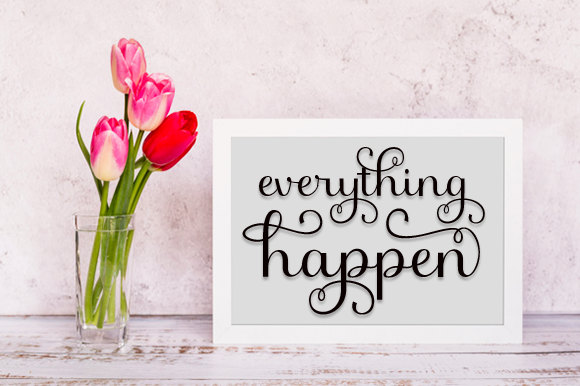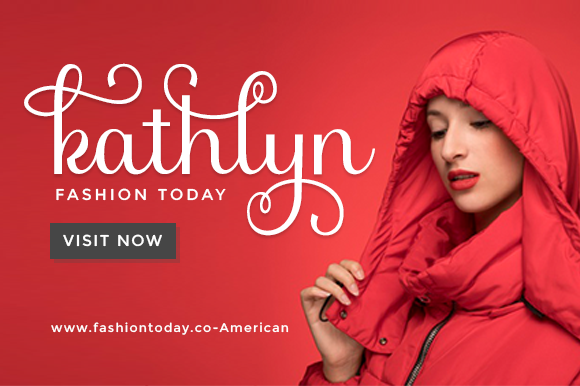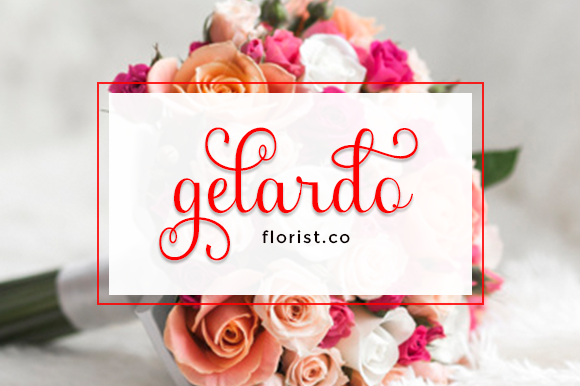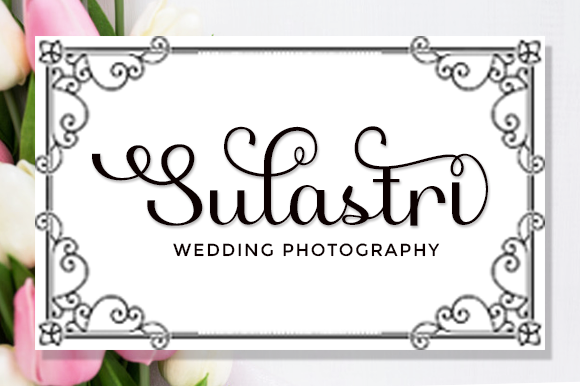
Discover the Elegance of Beligna Font: Elevate Your Design Projects
Are you on the hunt for a font that exudes charm and sophistication? Look no further than Beligna Font. This beautiful handwritten font is a masterful blend of classic calligraphy and modern style, making it the perfect addition to any design project. In this article, we’ll dive into the world of Beligna Font, exploring its unique features, and how it can elevate your designs to new heights.
The Charm of Beligna Font
Beligna Font feels equally charming and elegant, making it an excellent choice for designers and crafters looking to add a touch of sophistication to their work. This stunning handwritten font is a stylish homage to classic calligraphy, with flowing lines and delicate curves that evoke a sense of luxury and refinement.
What Makes Beligna Font Special?
So, what sets Beligna Font apart from other fonts? Here are a few key features that make it a standout:
- Handwritten with love: Beligna Font is a carefully crafted handwritten font, with each letter lovingly written to create a unique and personal feel.
- Classic calligraphy inspiration: Beligna Font draws inspiration from classic calligraphy, with elegant flourishes and delicate curves that add a touch of sophistication to any design.
- Versatile and adaptable: Whether you’re working on a branding project, a wedding invitation, or a digital design, Beligna Font is versatile enough to adapt to any style or theme.
- Easy to read and use: Despite its elegant and refined appearance, Beligna Font is surprisingly easy to read and use, making it perfect for both digital and print designs.
How to Use Beligna Font in Your Design Projects
Beligna Font is incredibly versatile, and can be used in a wide range of design projects. Here are a few ideas to get you started:
- Branding and logos: Use Beligna Font to create a sophisticated and elegant brand identity that will set your business apart.
- Wedding invitations and stationery: Add a touch of luxury and refinement to your wedding invitations and stationery with Beligna Font.
- Digital designs: Use Beligna Font in your digital designs, such as social media graphics, blog posts, and email newsletters, to add a touch of elegance and sophistication.
- Print designs: Beligna Font is perfect for print designs, such as brochures, flyers, and posters, where its elegant and refined appearance can really shine.
Tips and Tricks for Getting the Most Out of Beligna Font
Here are a few tips and tricks to help you get the most out of Beligna Font:
- Experiment with different colors: Beligna Font looks stunning in a range of colors, from classic black and white to bold and bright hues.
- Play with font sizes: Experiment with different font sizes to create visual interest and hierarchy in your designs.
- Combine with other fonts: Beligna Font pairs beautifully with other fonts, so don’t be afraid to experiment with different combinations to create a unique look.
In conclusion, Beligna Font is a stunning handwritten font that is sure to take your design projects to the next level. With its elegant and refined appearance, versatility, and ease of use, it’s the perfect choice for designers and crafters looking to add a touch of sophistication to their work. So why not give Beligna Font a try, and see the difference it can make in your designs?